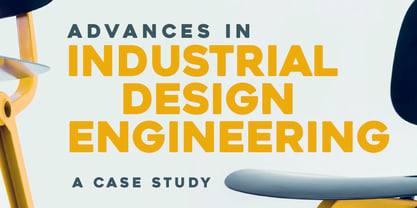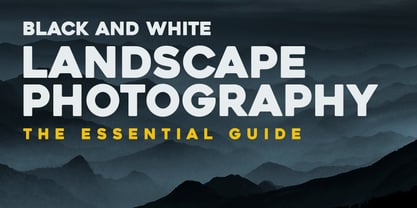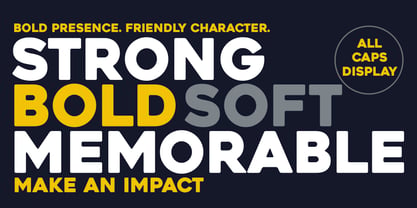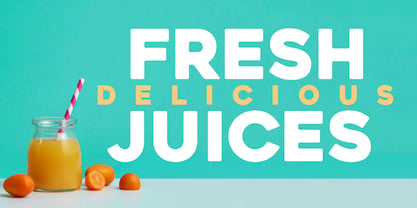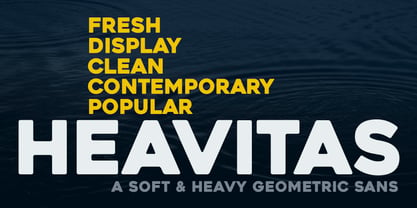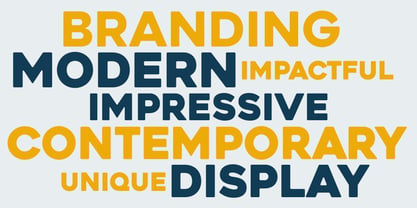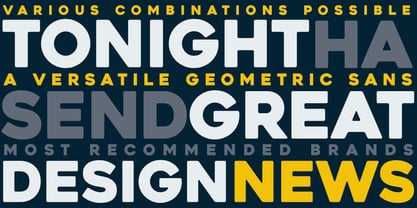
Heavitas
by Graphite
The Heavitas Font Family was designed by Deepak Dogra and published by Graphite. Heavitas contains 1 styles. More about this family
Heavitas is a striking all-caps display typeface that seamlessly merges bold geometric forms with gently softened edges. Crafted to create an immediate visual impact, it balances strength with approachability. The softened edges contribute warmth, resulting in a typeface that exudes a confident yet friendly personality.
Designed for maximum visual effectiveness, Heavitas shines in various applications, including logos, packaging, book covers, posters, signage, motion graphics, branding, and editorial design. Its clean construction and adaptable character make it ideal for a diverse array of contemporary design projects, ranging from bold brand identities to captivating promotional graphics.
Additionally, Heavitas features a multi-weight version known as Heavitas Neue, along with variations in upper and lower case letters, enhancing its versatility for any design endeavor.
Designers: Deepak Dogra
Foundry: Graphite